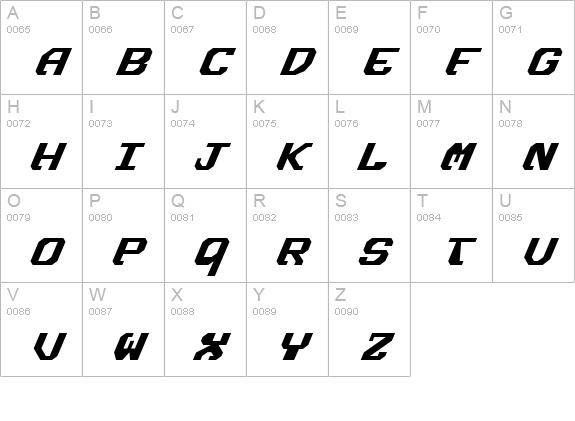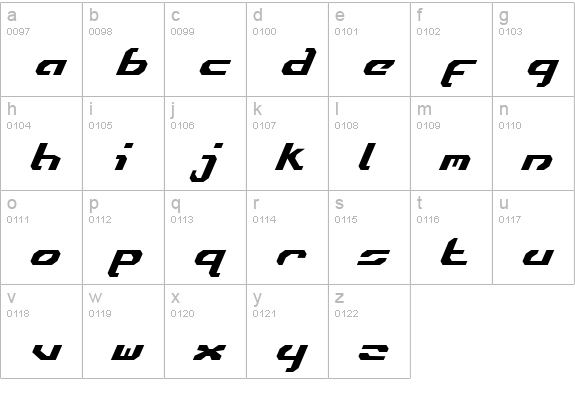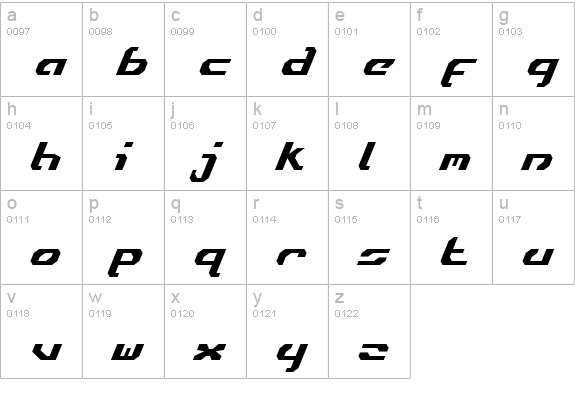
Ensign Flandry Italic is a distinctive, italic variant in the Ensign typeface family \xE2\x80\x94 well suited to design and typography projects.
Ensign Flandry Italic font is a sleek and sophisticated typeface that exudes elegance and style. Its slanted, italicized design adds a touch of flair to any text, making it perfect for conveying a sense of modernity and sophistication. The delicate curves and sharp angles of this font create a unique visual appeal that is sure to captivate readers. What's even better is that Ensign Flandry Italic font is completely free to download at FontsMarket.com! Whether you're working on a creative project, designing a website, or crafting a professional document, this font is a versatile choice that will elevate your work to the next level. Don't miss out on the opportunity to enhance your designs with the beauty of Ensign Flandry Italic font - download it now and start creating stunning visuals today!